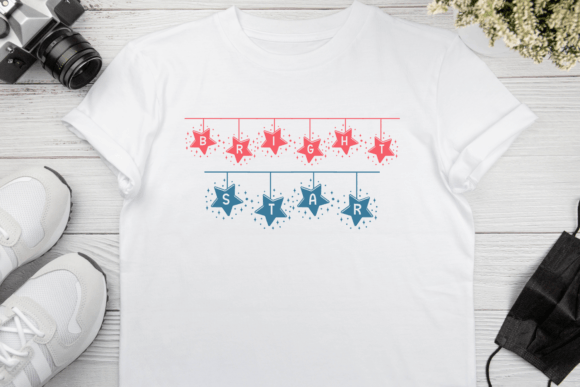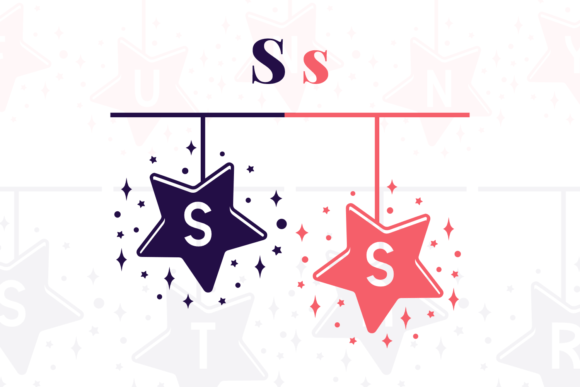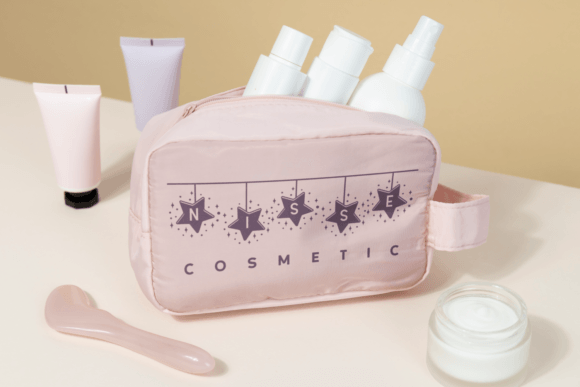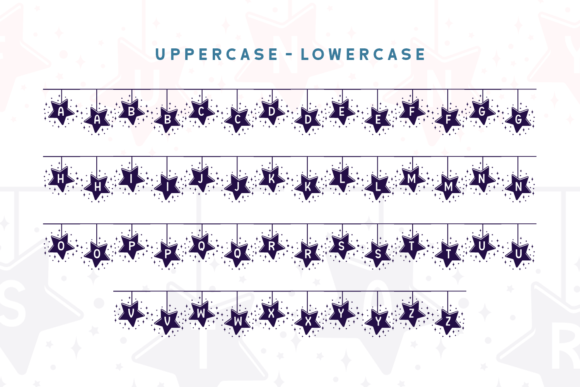
The Magical World of Funny Star Font
I still remember the time I was working on a children’s book project, and my client asked me to add a touch of whimsy to the title page. I scoured the internet for the perfect font, but nothing seemed quite right. That was until I stumbled upon the Funny Star font. Its playful design, featuring stars integrated into each letter, was exactly what I needed to bring the story to life. In this article, I’ll share my experience with Funny Star, its features, and how to make the most of it in your design projects.
A Personal Review of Funny Star Font
I’ve had the pleasure of working with Funny Star font on several projects, and here’s what I think:
- ✨ Playful and charming design: The font’s whimsical star motifs add a touch of magic to any composition.
- 🎉 Versatility: This font is perfect for a wide range of projects, from children’s books to party invitations and branding materials.
While Funny Star is an excellent font, it’s not without its quirks:
- 🤔 Limited use in formal designs: Due to its playful nature, Funny Star might not be the best choice for formal or professional projects.
- ⚠️ Occasional rendering issues: Some users have reported minor rendering issues when using the font in certain software or platforms.
One of the best things about Funny Star font is its OpenType features and glyphs. These allow you to customize your text and add more personality to your design:
- Stylistic alternates: Funny Star offers stylistic alternates that let you switch between different star designs.
- Glyphs: The font includes a range of glyphs, from stars and hearts to other whimsical symbols.
The Story Behind Funny Star Font
The Funny Star font was designed by a team of creatives who wanted to bring a touch of magic to the world of typography. Inspired by the wonder of childhood and the beauty of starry nights, they crafted a font that’s both playful and charming.
| What type of projects is Funny Star font best suited for? | Funny Star font is perfect for children’s books, party invitations, branding materials, and any design project that needs a touch of whimsy and playfulness. |
| Is Funny Star font available in different languages? | Funny Star font may not support all languages, but it does include a range of characters and glyphs to help you create unique designs. |